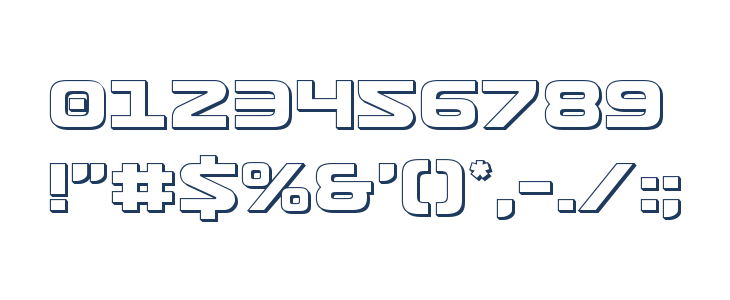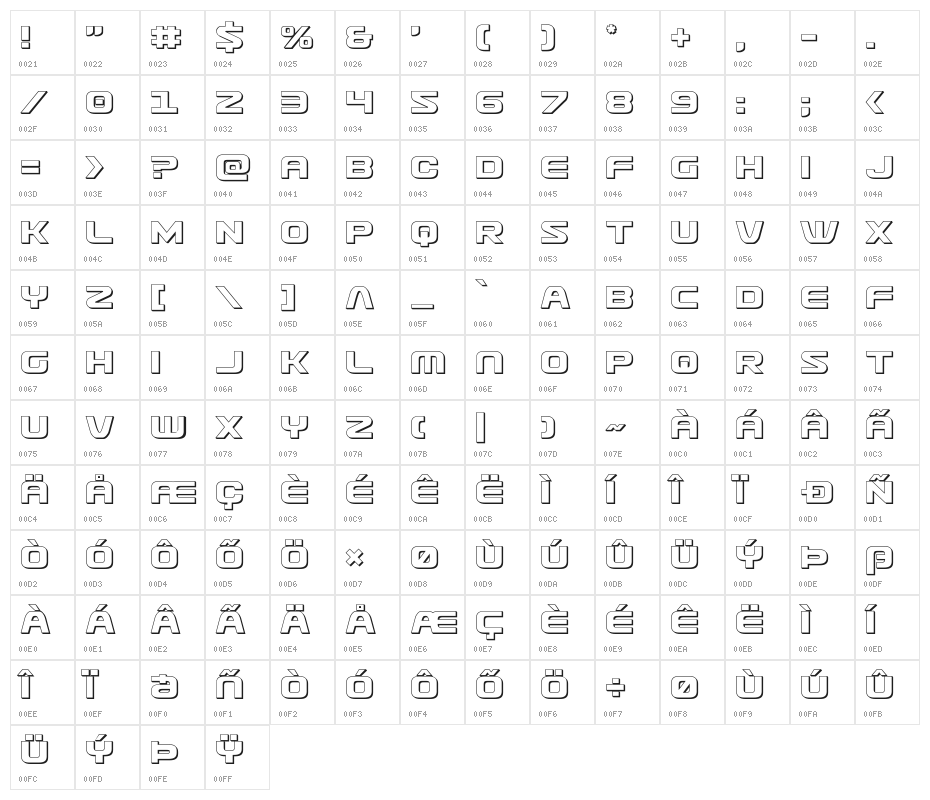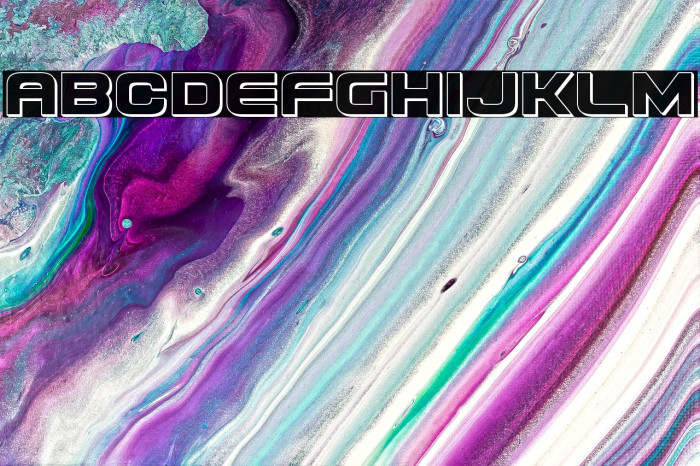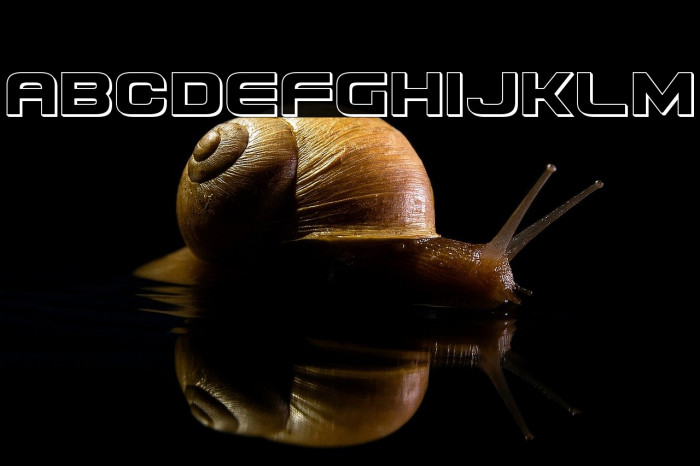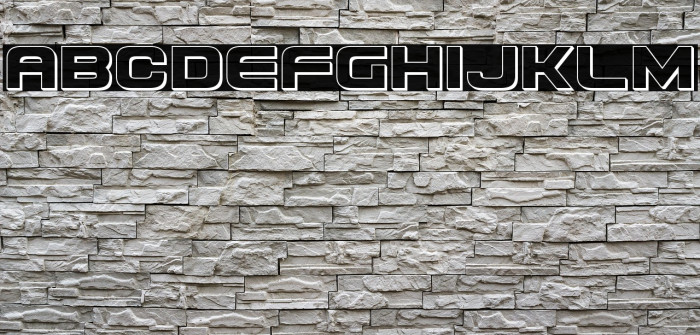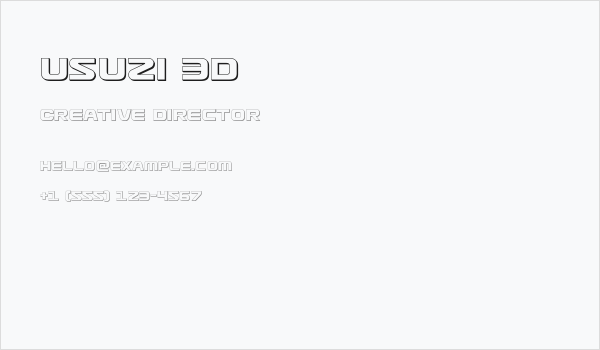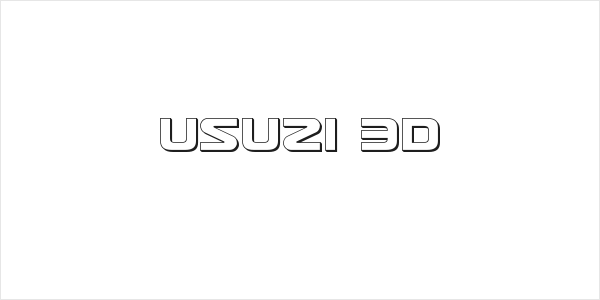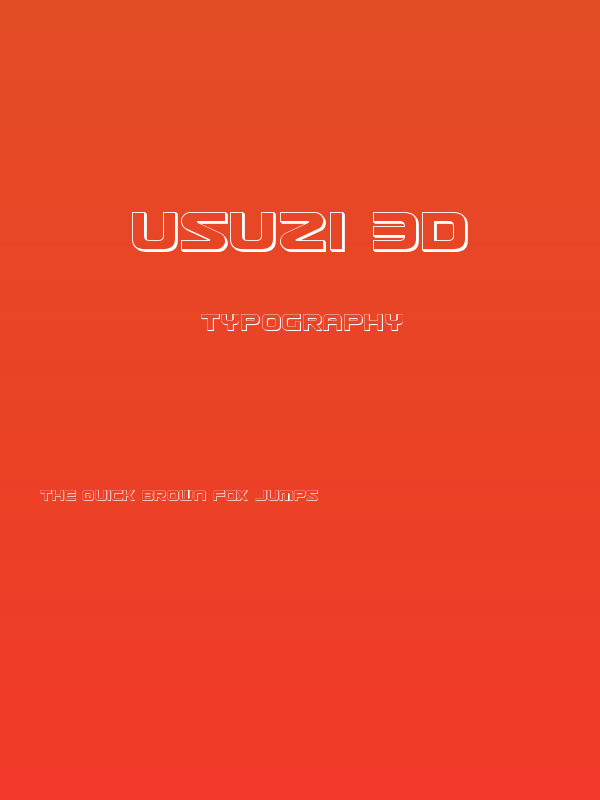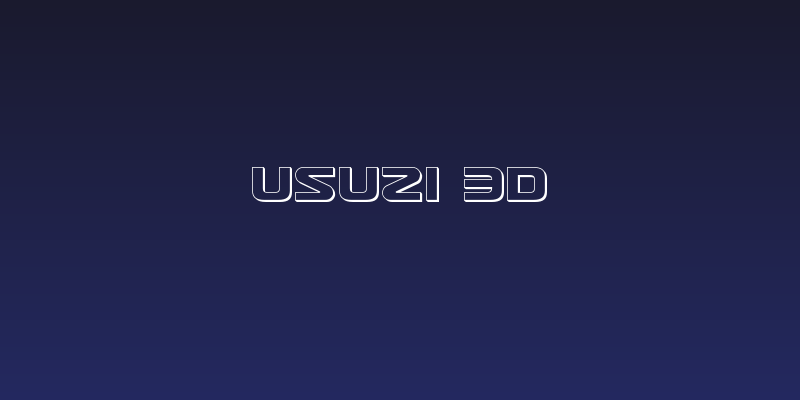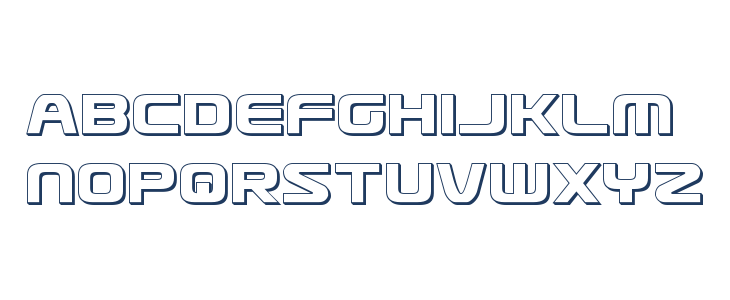
Usuzi 3D Font
Usuzi 3D Description
This font features a bold, geometric design with a three-dimensional effect, giving each character a distinct, futuristic appearance. The letters are outlined with a consistent stroke width, creating a hollow look that enhances the 3D illusion. The uppercase and lowercase letters maintain a uniform style, with angular edges and a modern aesthetic. The numerals and special characters follow the same design principles, ensuring a cohesive look across all glyphs. This font is ideal for projects that require a bold, eye-catching typeface with a modern twist.
| Proposed Projects | Ideal for futuristic branding, tech-related designs, video game titles, and sci-fi themed projects. |